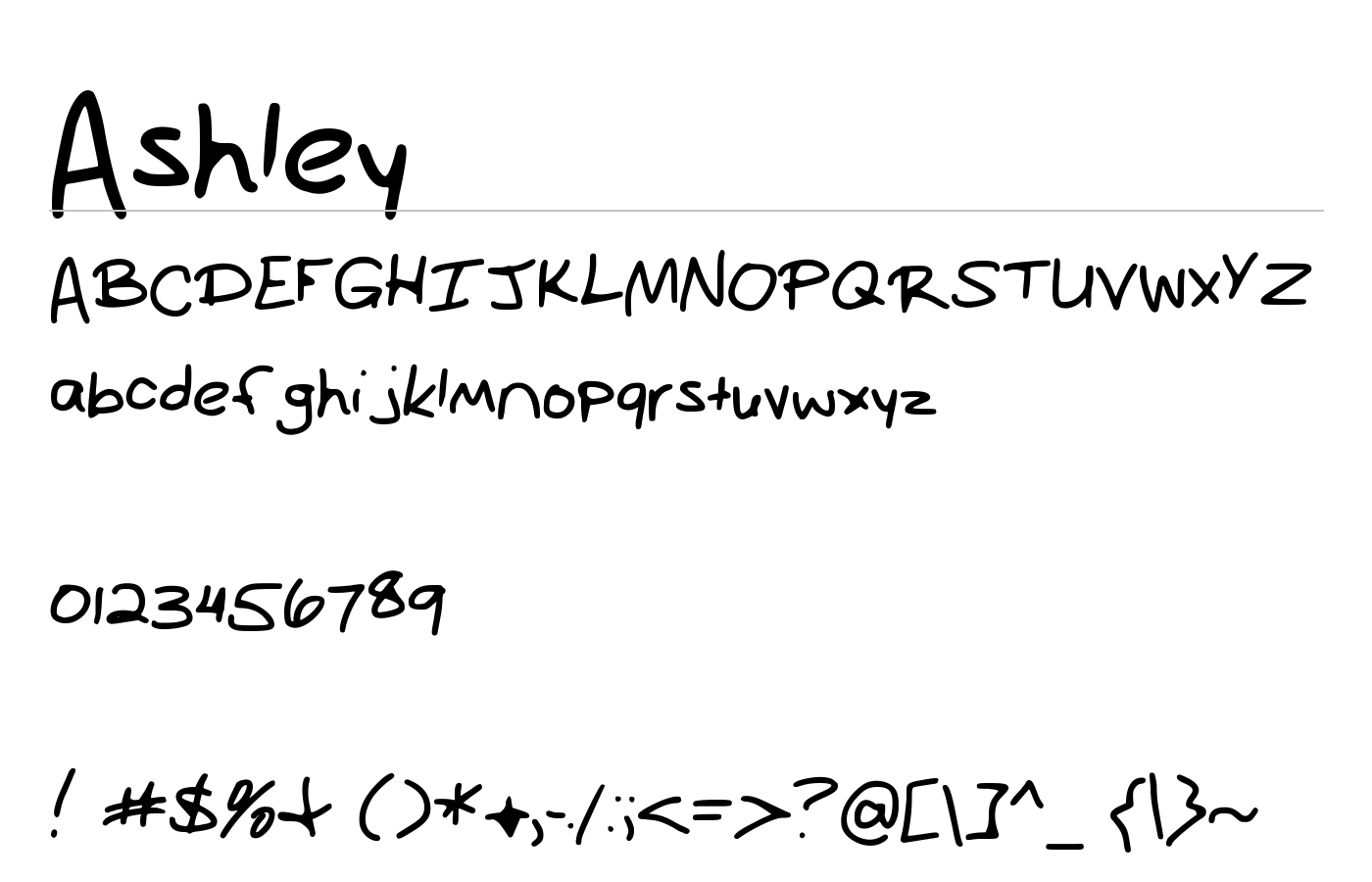
Ashley Font is a casual, hand-drawn sans serif typeface with a playful and friendly vibe. Its uneven, organic letterforms and lively strokes give it a warm, approachable personality, making it ideal for informal designs, children's materials, and creative branding that seeks a personal touch. This font works well for logos, headlines, and any design needing a handwritten feel without sacrificing clarity and legibility.
Ashley Font
About Ashley Font